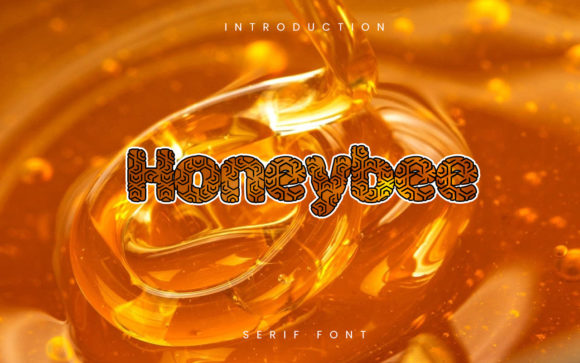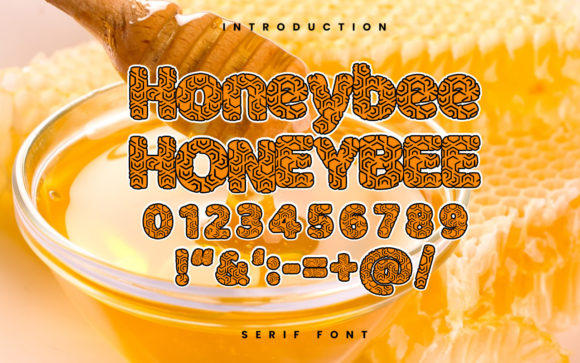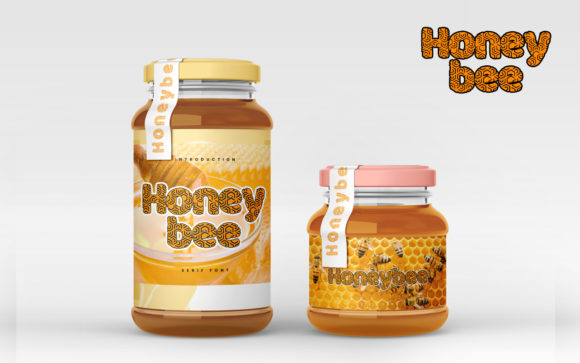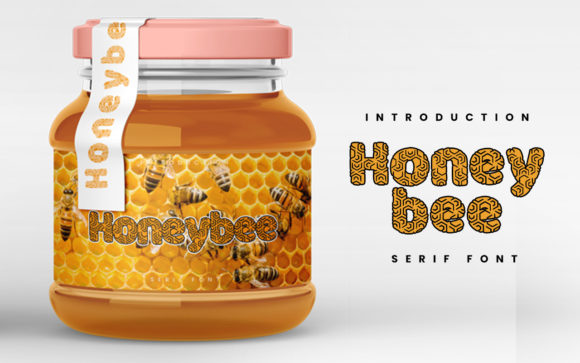
Sticky Your Audience with the Honeybee Font
You’re browsing through design inspiration boards, and suddenly, a striking font catches your eye. The intricate details, the playful charm – it’s a game-changer. You can almost picture your next project taking shape with this font at the forefront. For designers, the quest for that perfect font is a constant one. Enter the Honeybee Font, a uniquely designed decorative font that promises to elevate your creations.
This simple yet visually impactful font is more than just a pretty face. Its purpose is to add a touch of personality to your designs, making them stand out in a crowded digital landscape. Whether you’re crafting social media graphics, branding materials, or promotional content, the Honeybee Font is a valuable addition to your toolkit. Its versatility and charm make it a must-have for designers looking to take their work to the next level.
Honeybee Font Key Features
- Unique Characteristics: The Honeybee Font features a unique, hand-drawn design with subtle imperfections, giving it a warm and organic feel.
- Style Variations: Honeybee Font includes 6 different styles, including Regular, Italic, Bold, Bold Italic, Condensed, and Extended, allowing designers to experiment with various looks and feels.
Honeybee Font Review
As a designer, I was excited to dive into the Honeybee font and see what it had to offer. Overall, I’d say it’s a cute and playful font that’s perfect for certain types of projects.
- Cute and playful feel: The Honeybee font has a charming, whimsical quality that’s perfect for children’s books, food labels, or any project that needs a lighthearted touch.
- Good legibility: The font is easy to read, even at smaller sizes, making it a great choice for body text or signage.
- Variety of weights: The font comes in a range of weights, from light to bold, giving designers plenty of options for customizing their designs.
- Limited versatility: While the Honeybee font is perfect for certain projects, it may not be the best choice for more formal or professional designs.
- No italic or oblique: The font only comes in upright weights, which can limit its use in certain situations.
Overall, I think the Honeybee font is a fun and useful addition to any designer’s toolkit. While it may have some limitations, its playful feel and good legibility make it a great choice for the right projects.
Great Vibes is a beautiful, handwritten font that is perfect for creating a fun and playful feel in designs. It is ideal for use in social media graphics, posters, and other creative projects where a touch of whimsy is needed. Compared to Honeybee Font, Great Vibes has a more casual and relaxed look, making it a great choice for designers who want to create a more laid-back aesthetic.